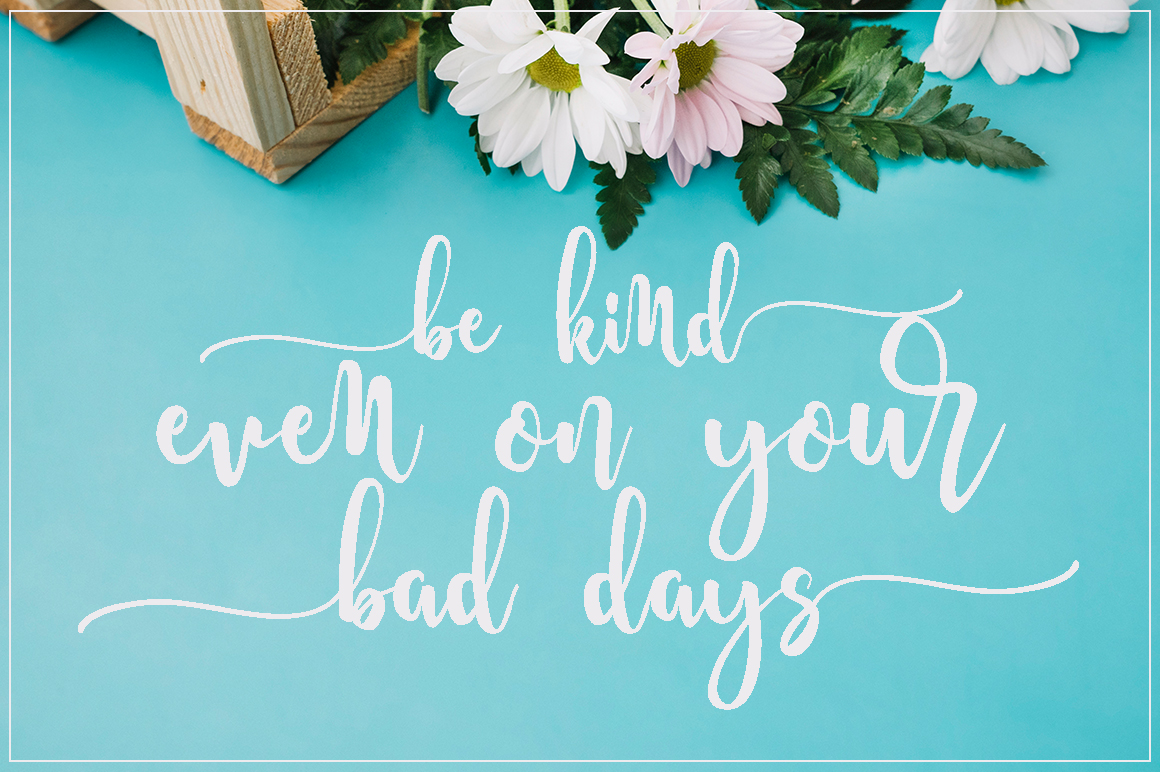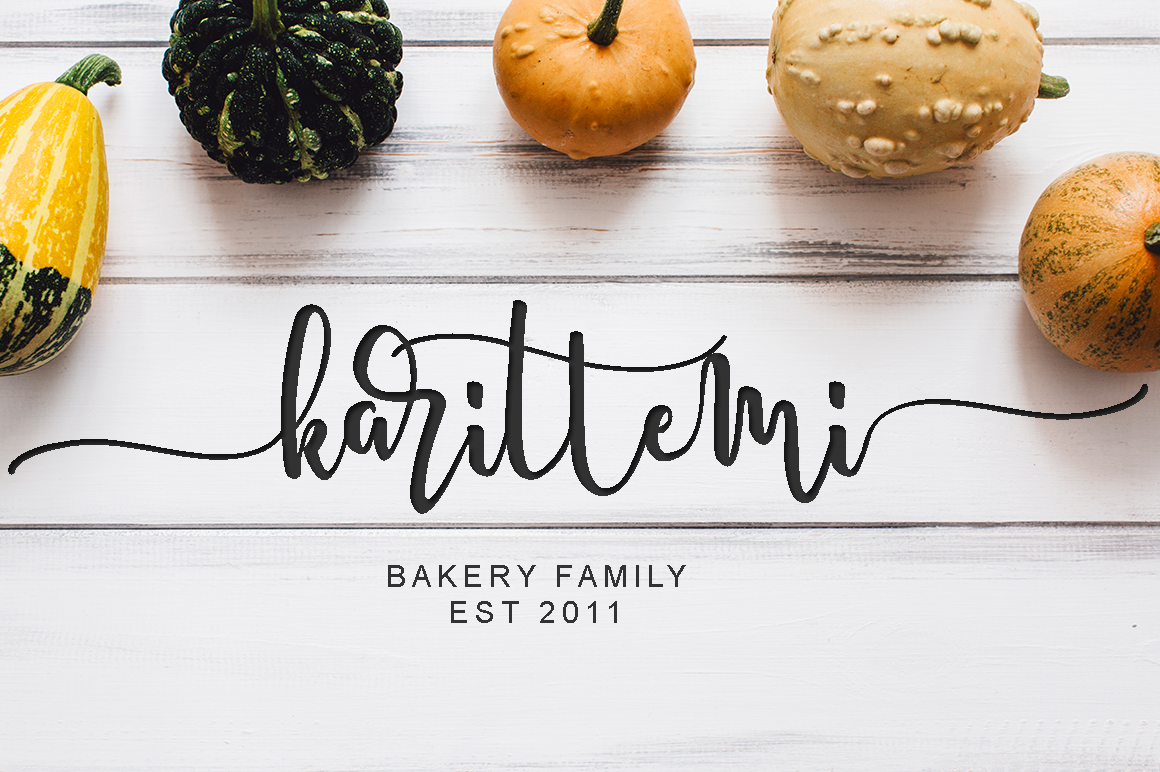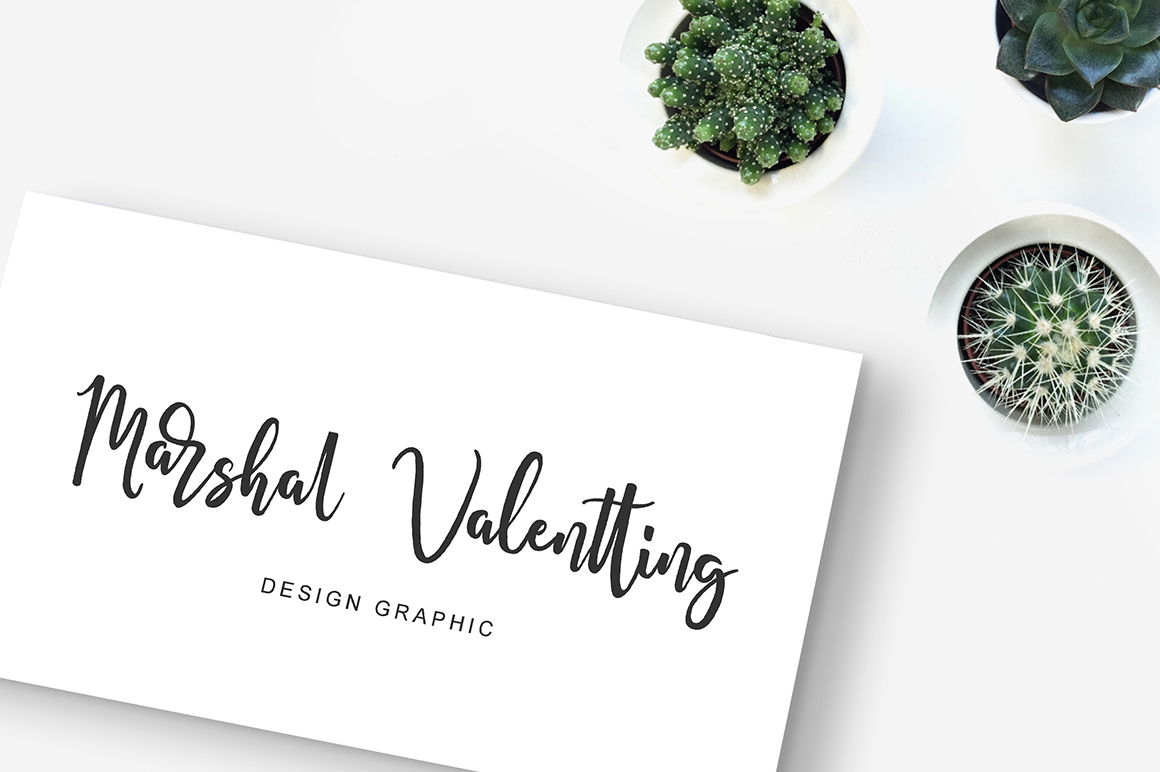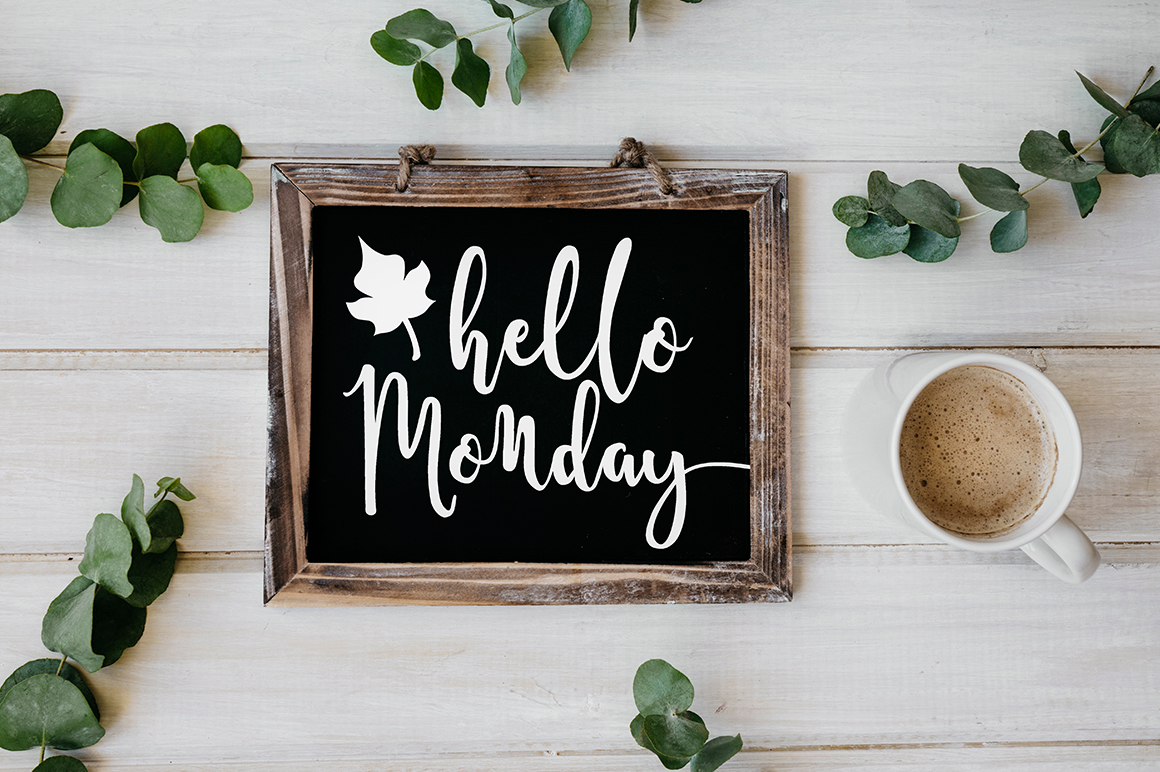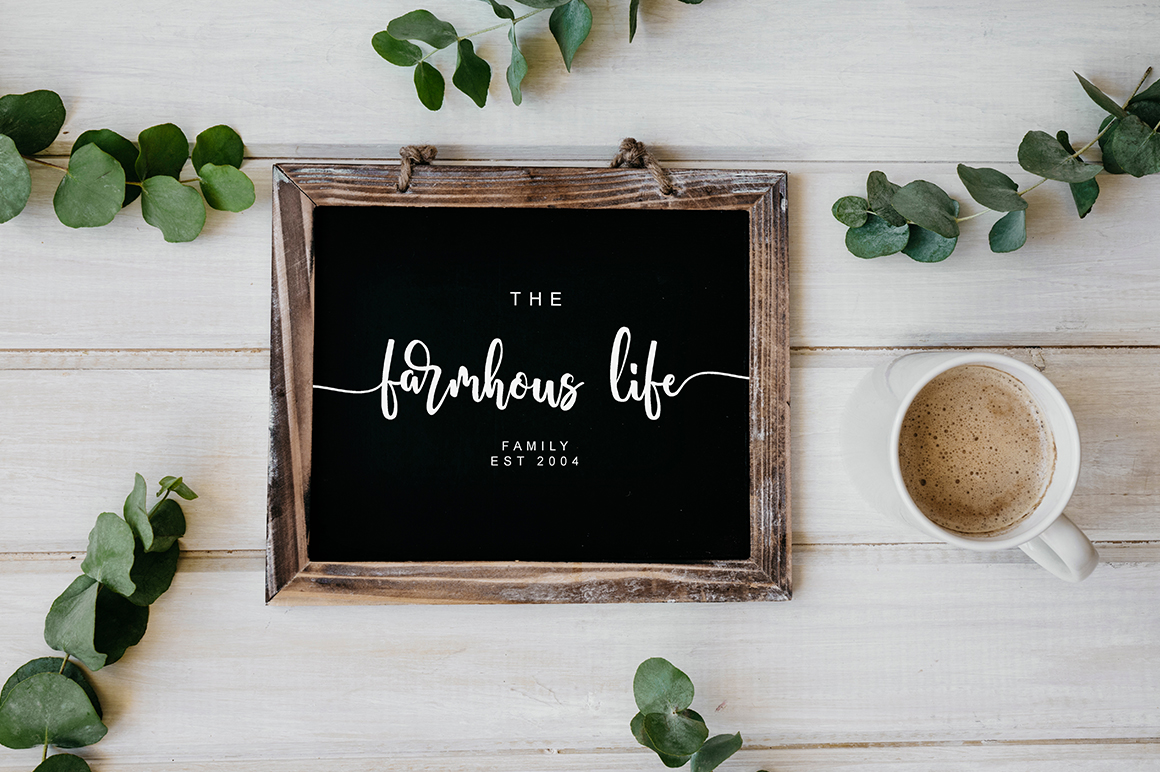
HomeScript FontsMaterime Font Script Fonts Materime Font FacebookXPinterestWhatsApp Materime Font Poster 2 Materime Font Poster 3 Materime Font Poster 4 Materime Font Poster 5 Materime Font Poster 6 About Materime Font Materime is a modern script font with long, stylish swashes. DOWNLOAD NOW People also explored Miss Lazy Font Diffland Font Mister Ngabs Font Romantika Font Lemon Grande Font Shorter Font Candy Queen Font Baby Bloom Font Cinta Monyett – Handwritten Font 533 0 TagsMaterime Font Previous articleRallifornia FontNext articleSallyh Alotah Font LEAVE A REPLY Cancel reply Comment: Please enter your comment! Name:* Please enter your name here Email:* You have entered an incorrect email address! Please enter your email address here Website: Save my name, email, and website in this browser for the next time I comment. Personal Use Free Makeba Font Personal Use Free Read more about this font Masha Song Personal Use Free Read more about this font Vanchrome Personal Use Free Read more about this font Numberpile Personal Use Free Read more about this font BLOG Exploring Font Trends Shaping Communication in the Digital Era Fonts, like all design elements, are subject to trends. They play a crucial role in communicating a brand's personality,... The 10 Best Handwriting Fonts to Add Personality to Your Designs To increase your work productivity, choose the most readable fonts. Best Fonts for T-Shirt Design – Top 2025 Picks